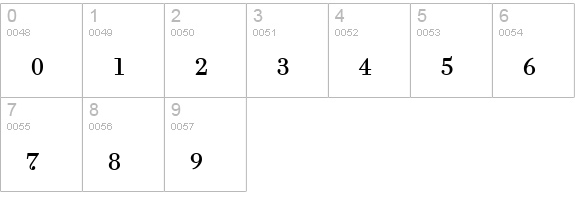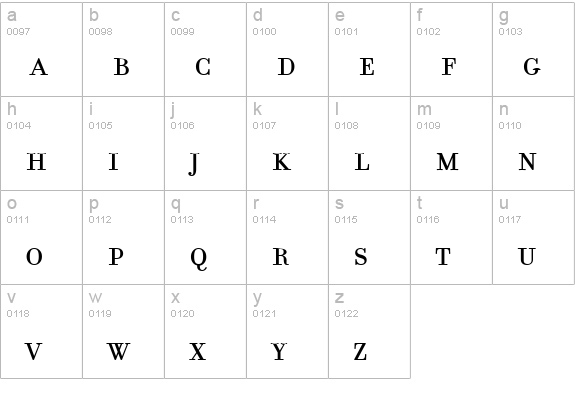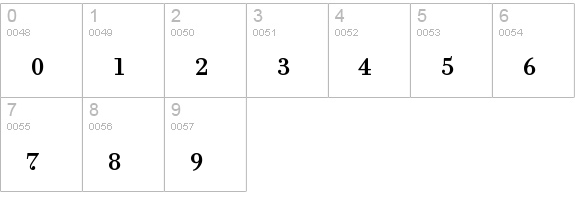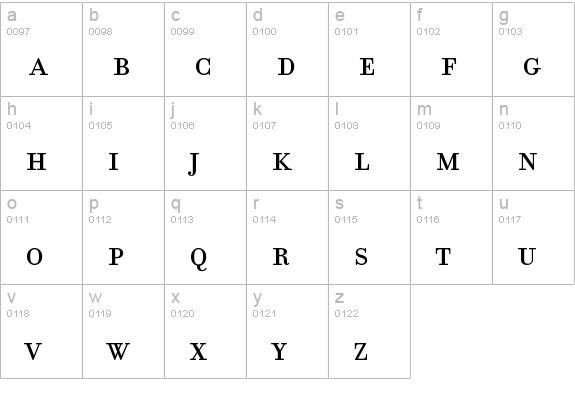
FilosofiaSmallCaps Regular Font Details
FilosofiaSmallCaps Regular is the standard, neutral variant in the FilosofiaSmallCaps typeface family \xE2\x80\x94 well suited to general body text, paragraphs, and standard typographic work.
FilosofiaSmallCaps Regular font is a stunning and elegant typeface that exudes sophistication and charm. With its clean lines and delicate curves, this font is perfect for adding a touch of refinement to any design project. Whether you're creating invitations, logos, or branding materials, FilosofiaSmallCaps Regular font will elevate your work to a whole new level. The beauty of FilosofiaSmallCaps Regular font lies in its versatility - it can be used for both formal and informal projects, making it a truly versatile choice for designers. Its small caps style adds a unique flair to any text, giving it a classic and timeless look. And the best part? FilosofiaSmallCaps Regular font is completely free to download at FontsMarket.com! So you can elevate your designs without breaking the bank. Don't miss out on this amazing opportunity to add a touch of elegance to your projects with FilosofiaSmallCaps Regular font.